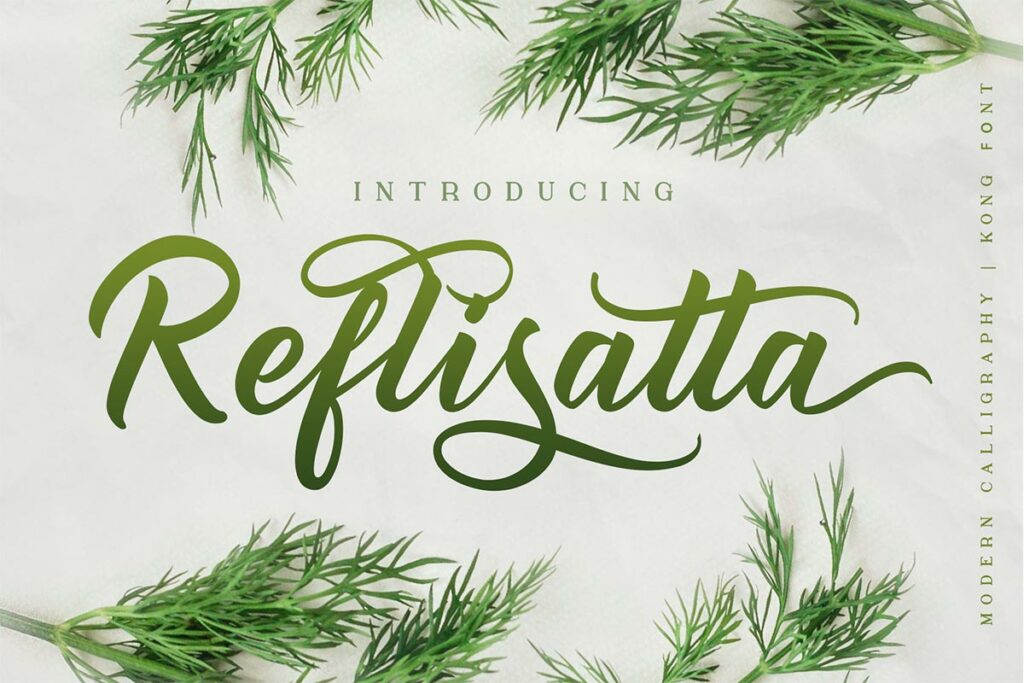
Reflisatta Font
Glad to introduce you a new Reflisatta Script Font with stylish, signature, feminine, elegant, bold, and handwriting look font. The natural flow with the swashes make this font looks even more prettier. This type of font perfectly made to be applied especially in wedding invitation, labels, logos, magazines, books, greeting / wedding cards, packaging, fashion, make up, stationery, novels, labels or any type of advertising purpose.
Reflisatta Script Calligraphy Font